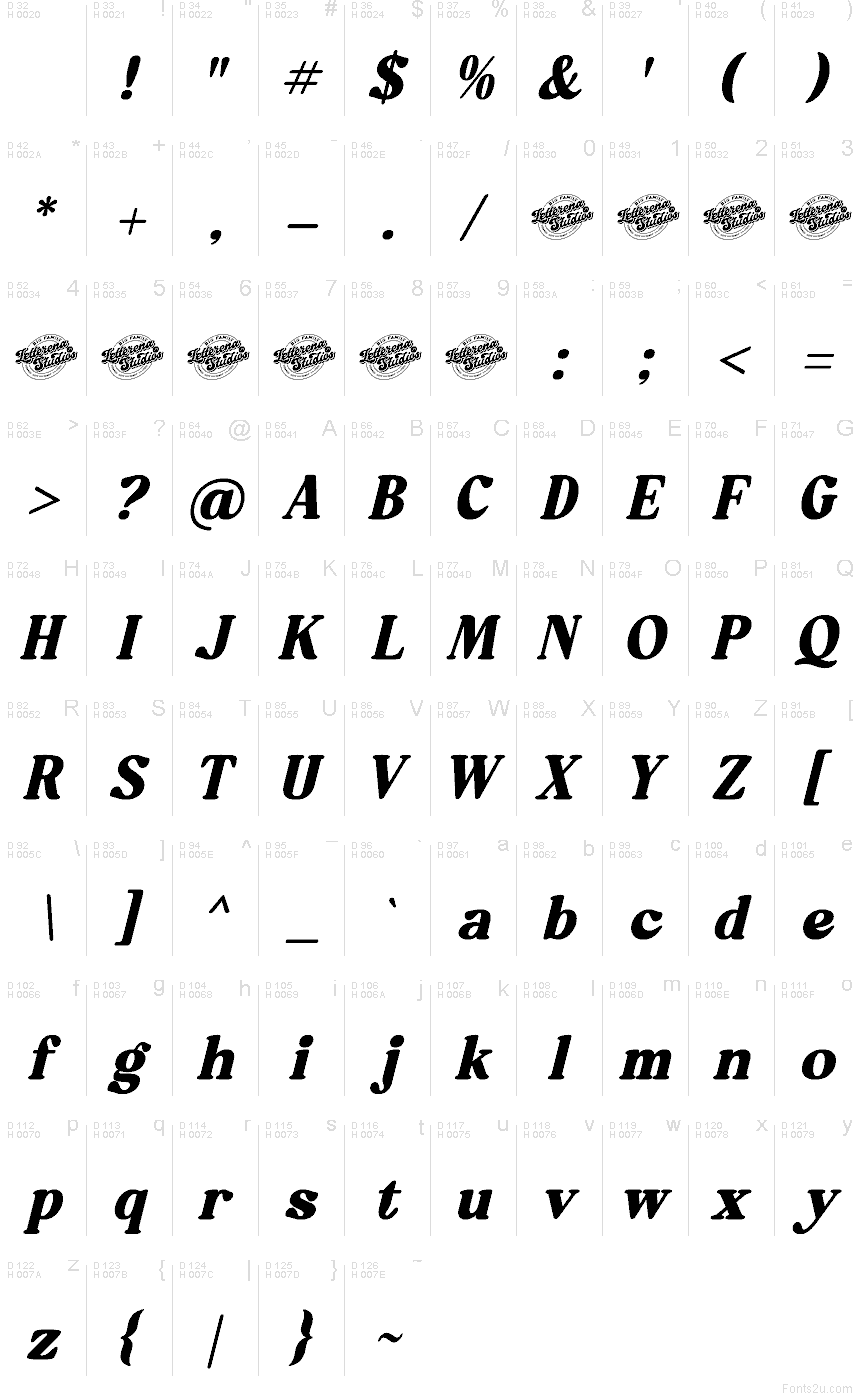
Mistys Relrica DEMO VERSION Italic
Mistys Relrica Italic font by Letterena Studios is a free serif typeface with a lush, inky slant that feels like it was pulled straight from a vintage sign painter’s brush. The letters are bold and generously curved, with thick strokes that swell and taper in a smooth rhythm, giving every word a sense of motion and drama. It has a romantic, slightly theatrical energy that immediately pulls the eye and makes short phrases feel luxurious and hand-crafted.
Using Mistys Relrica Italic, this free font shines on boutique logos, perfume or candle packaging, book covers, wedding stationery, posters, and statement social media graphics. The weighty forms and flowing angle hold up beautifully at larger sizes where the inky curves can really be appreciated. For a clean, modern contrast, pair Mistys Relrica with a simple geometric sans for body text and let this italic handle your headlines and names.